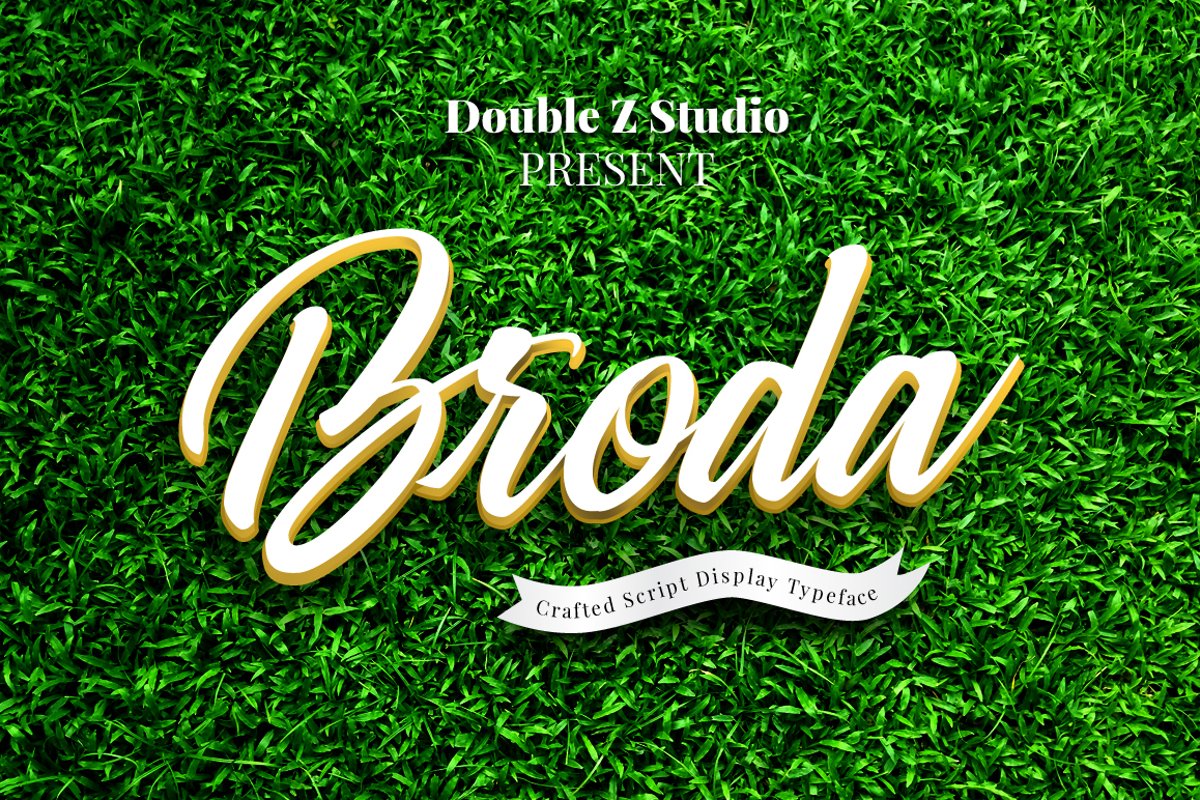
Broda Script
Broda
Broda is a beautiful and elegant display script. Perfect for designing branding, blog logo, website logo, print ads, book covers, film covers, apparel, cards, logos, posters, etc. Opentype features gives you more alternatives in designing.
• Basic Latin A-Z and a-z
• Symbols
• Stylistic Set
• Kerning